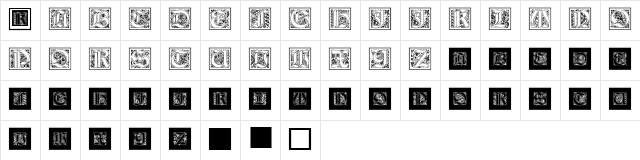
KaiserRotbartTwoCaps Regular
Design Context for KaiserRotbartTwoCaps Typeface
KaiserRotbartTwoCaps is a composed and adaptable typeface that performs quietly and consistently across a wide range of design contexts.